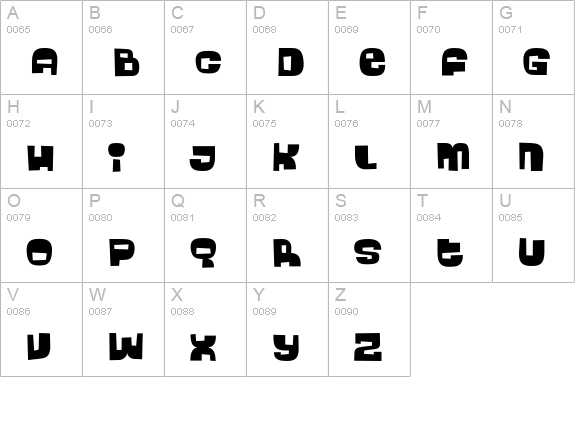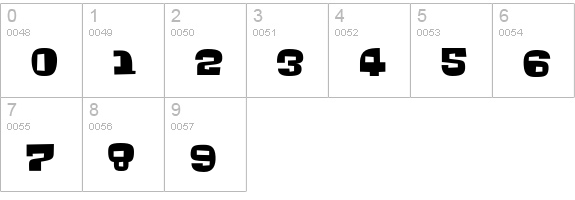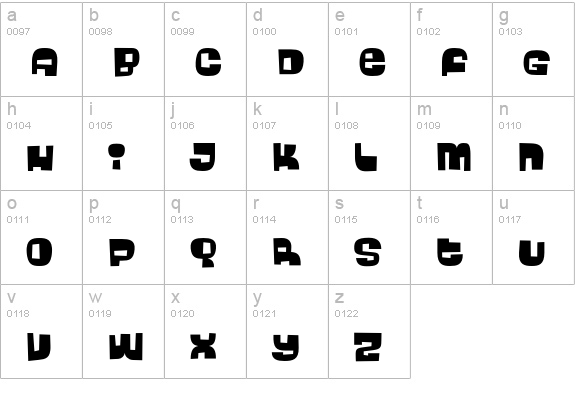
Bingo Font Details
Introducing Bingo font, a charming and versatile typeface that will add a touch of whimsy to your design projects. This playful font features rounded edges and a friendly appearance, making it perfect for a variety of applications, from cards and invitations to posters and banners. What's even better is that Bingo font is available for free download at FontsMarket.com, making it easily accessible for all your creative endeavors. So go ahead and add a fun and inviting element to your designs with Bingo font today!